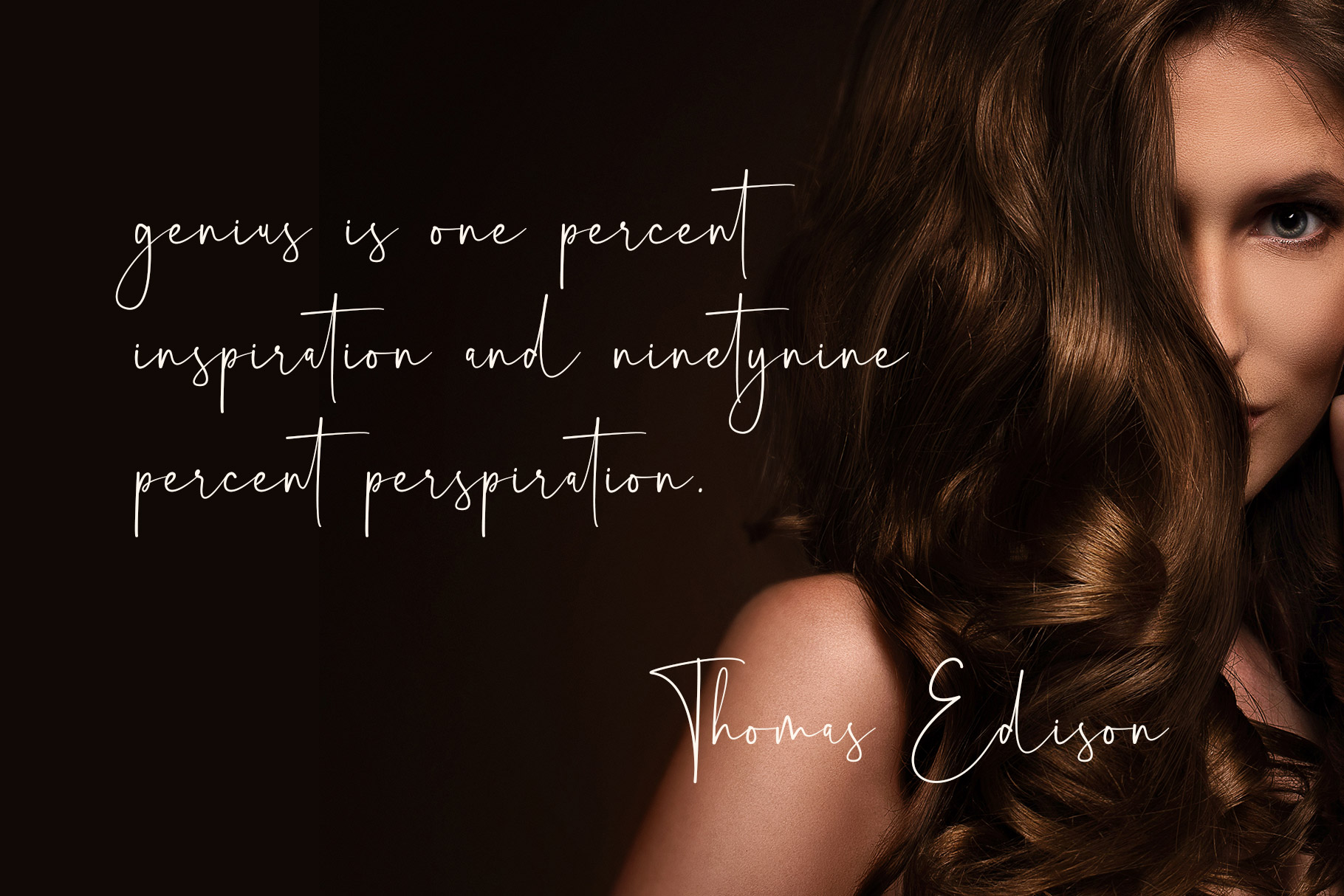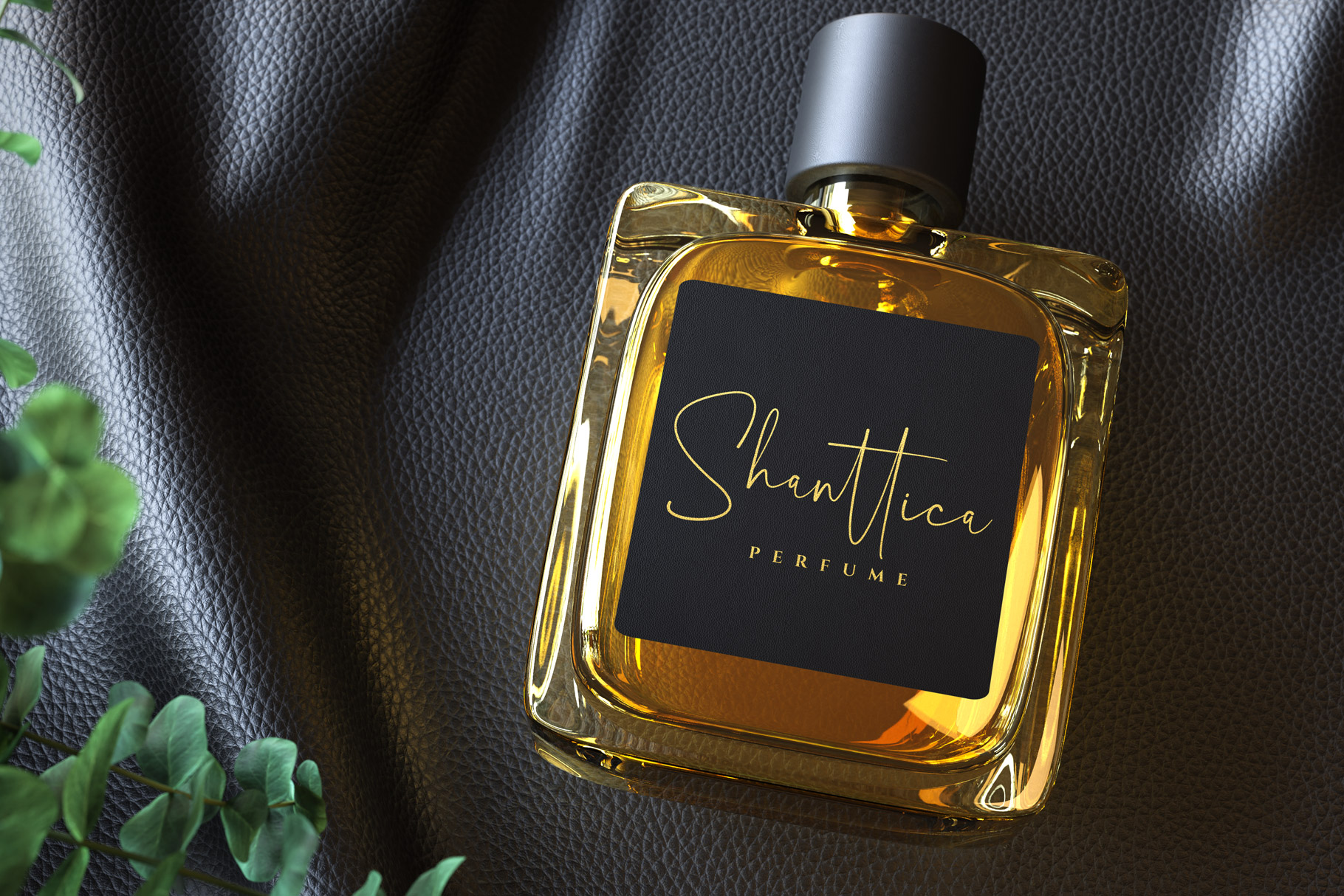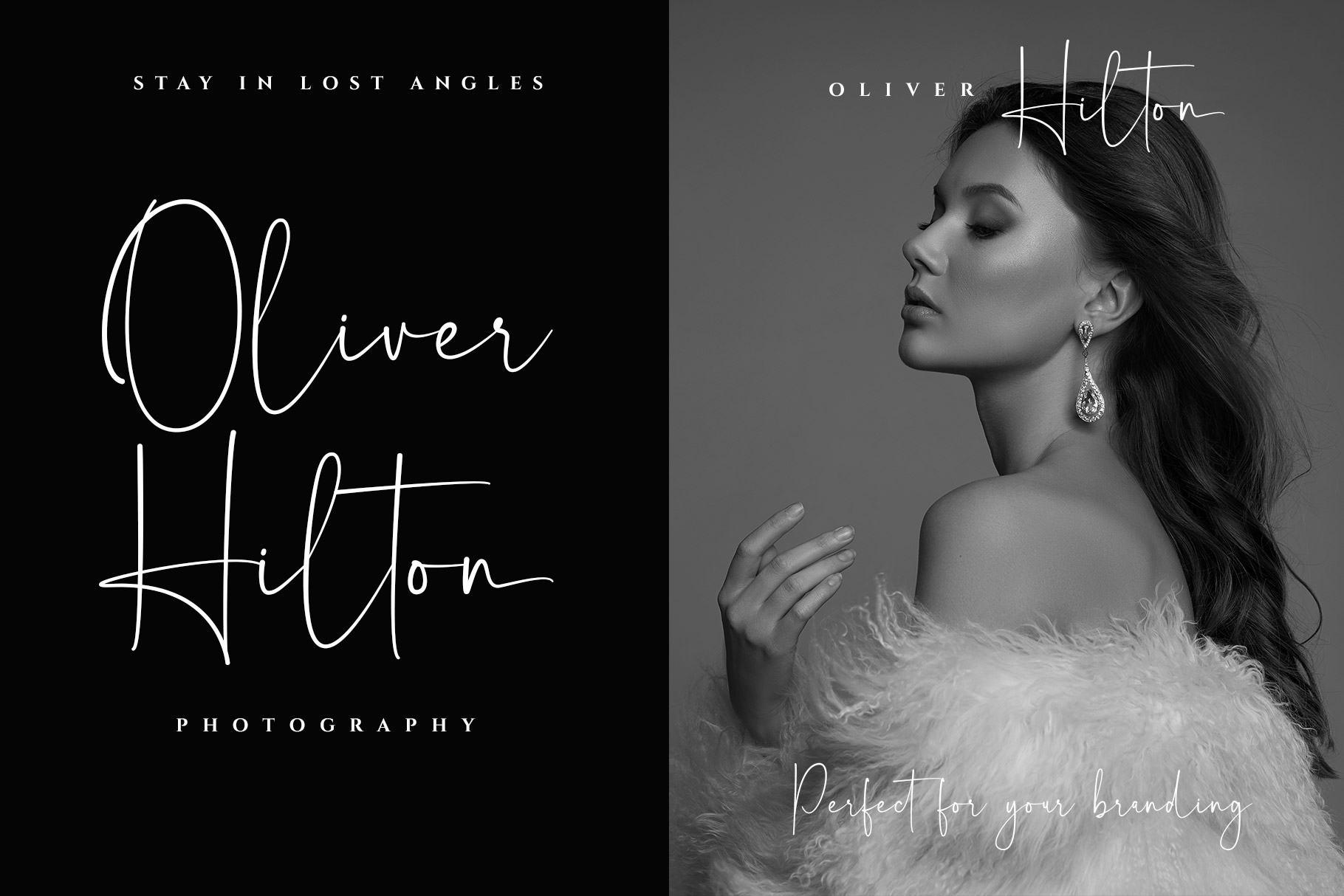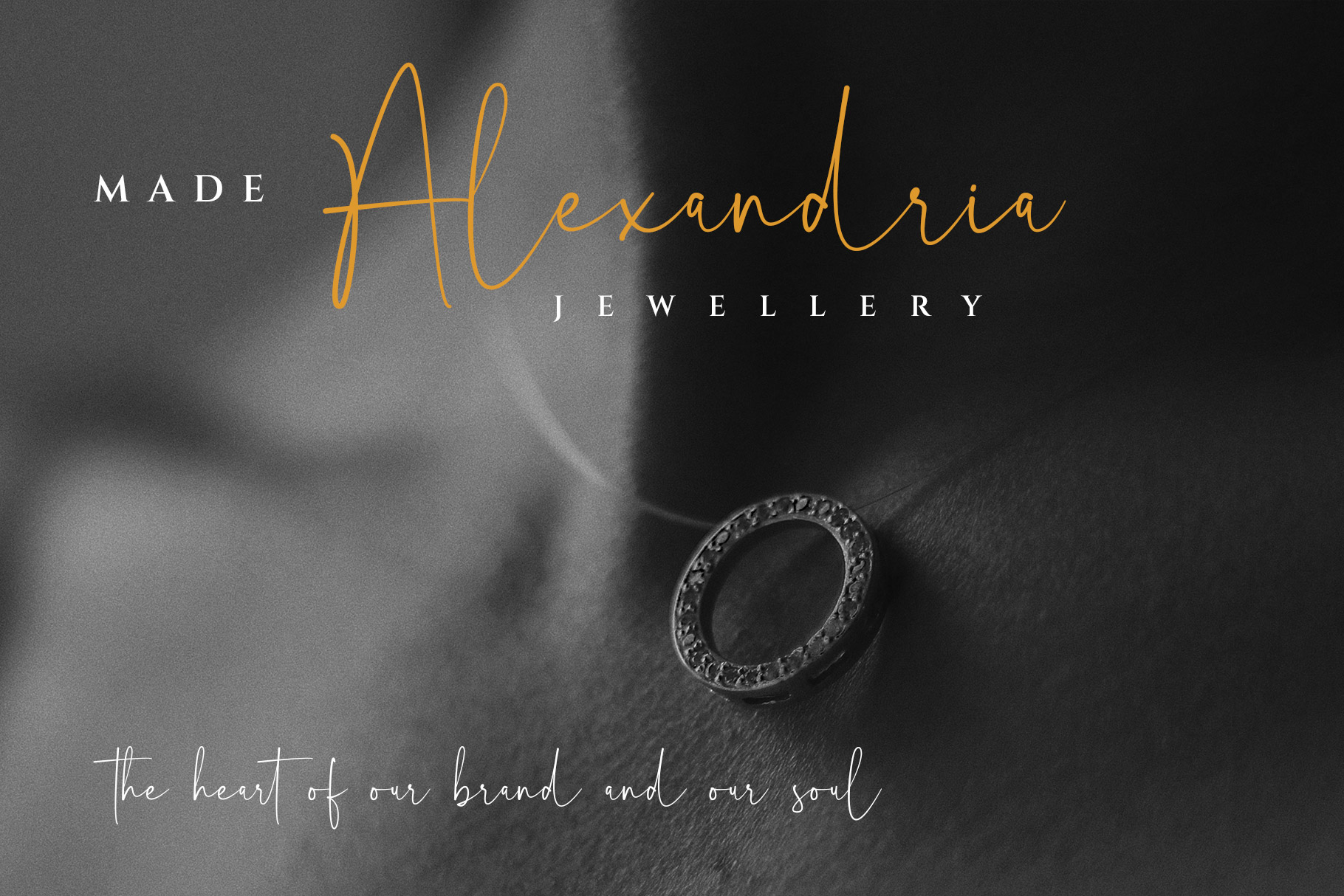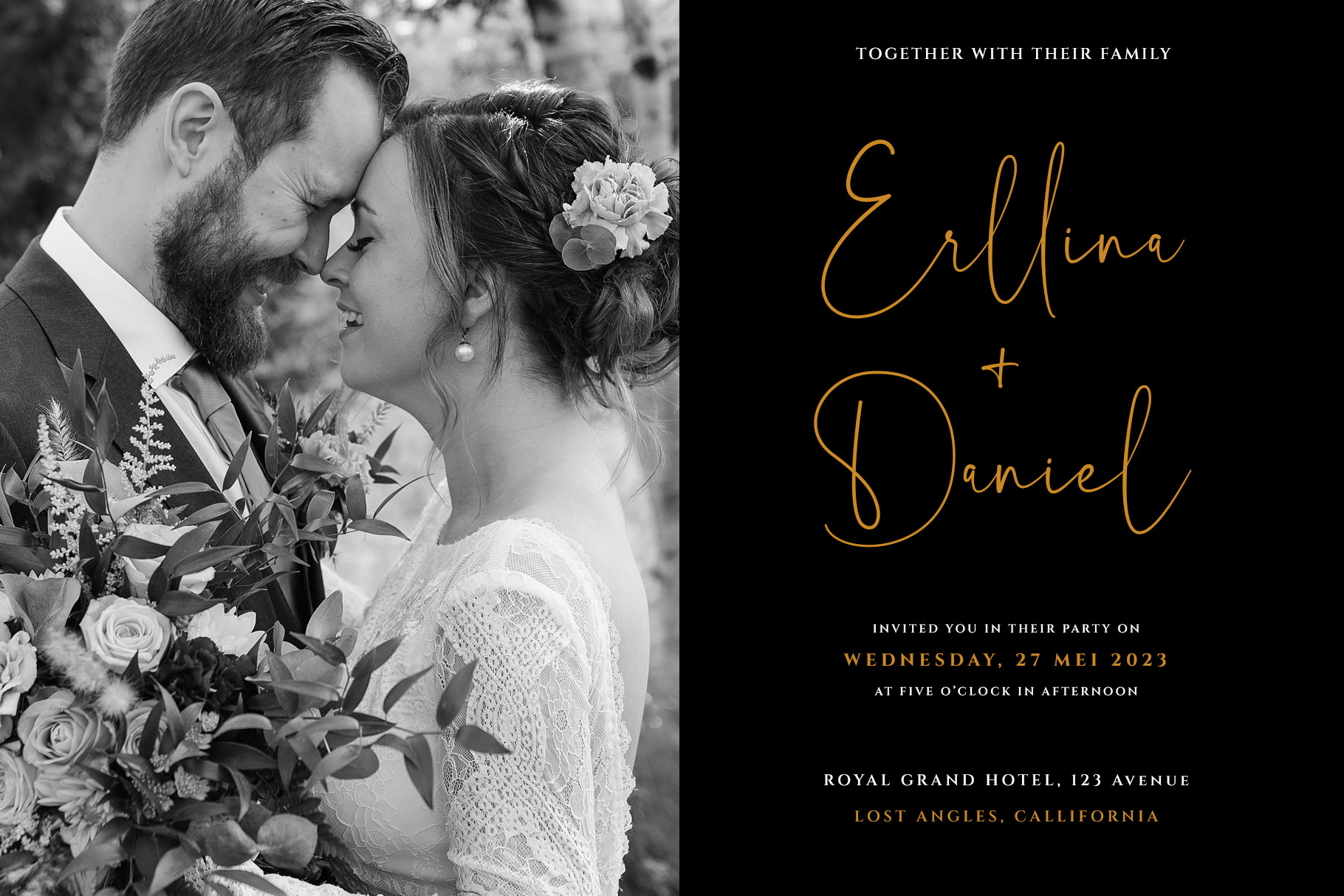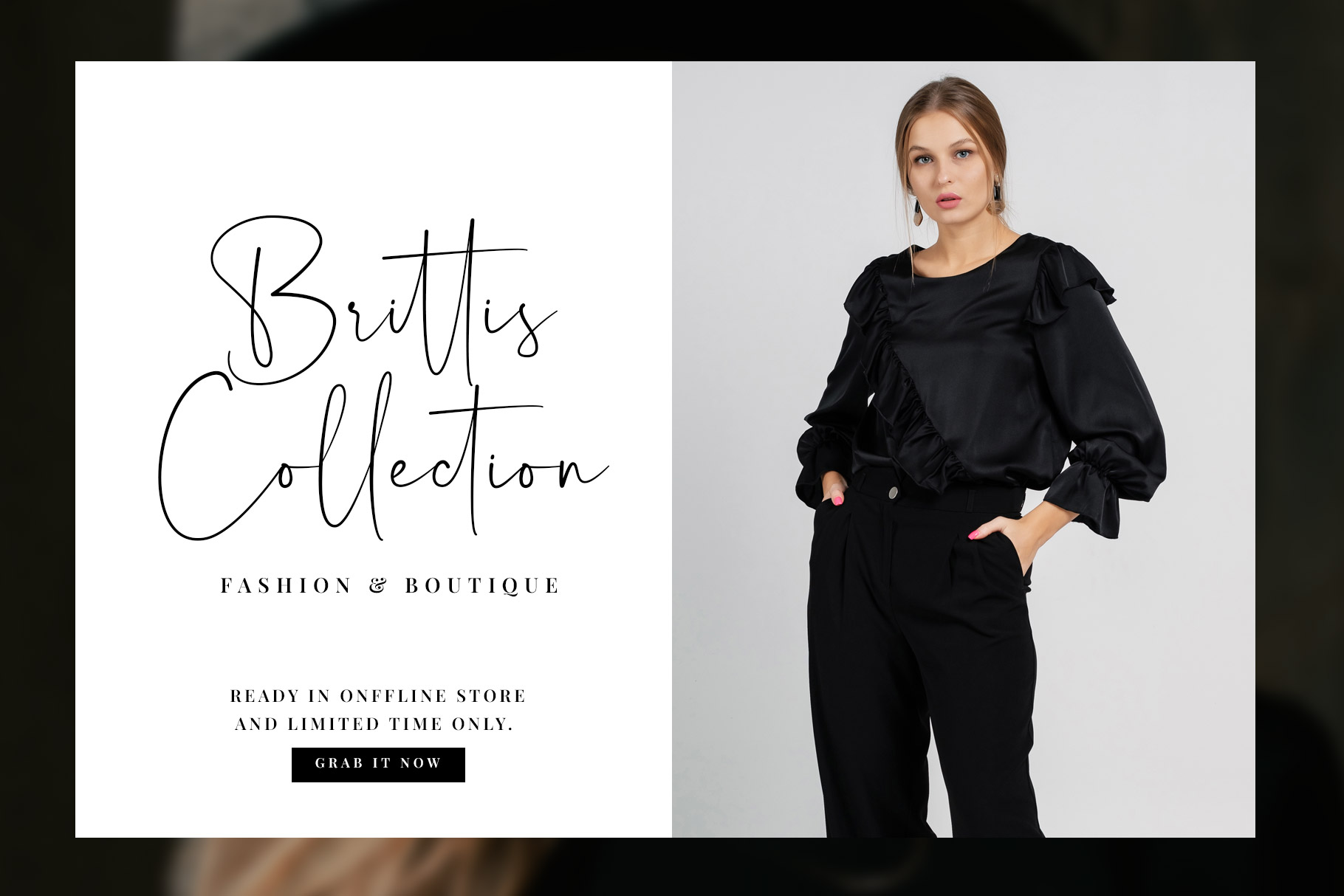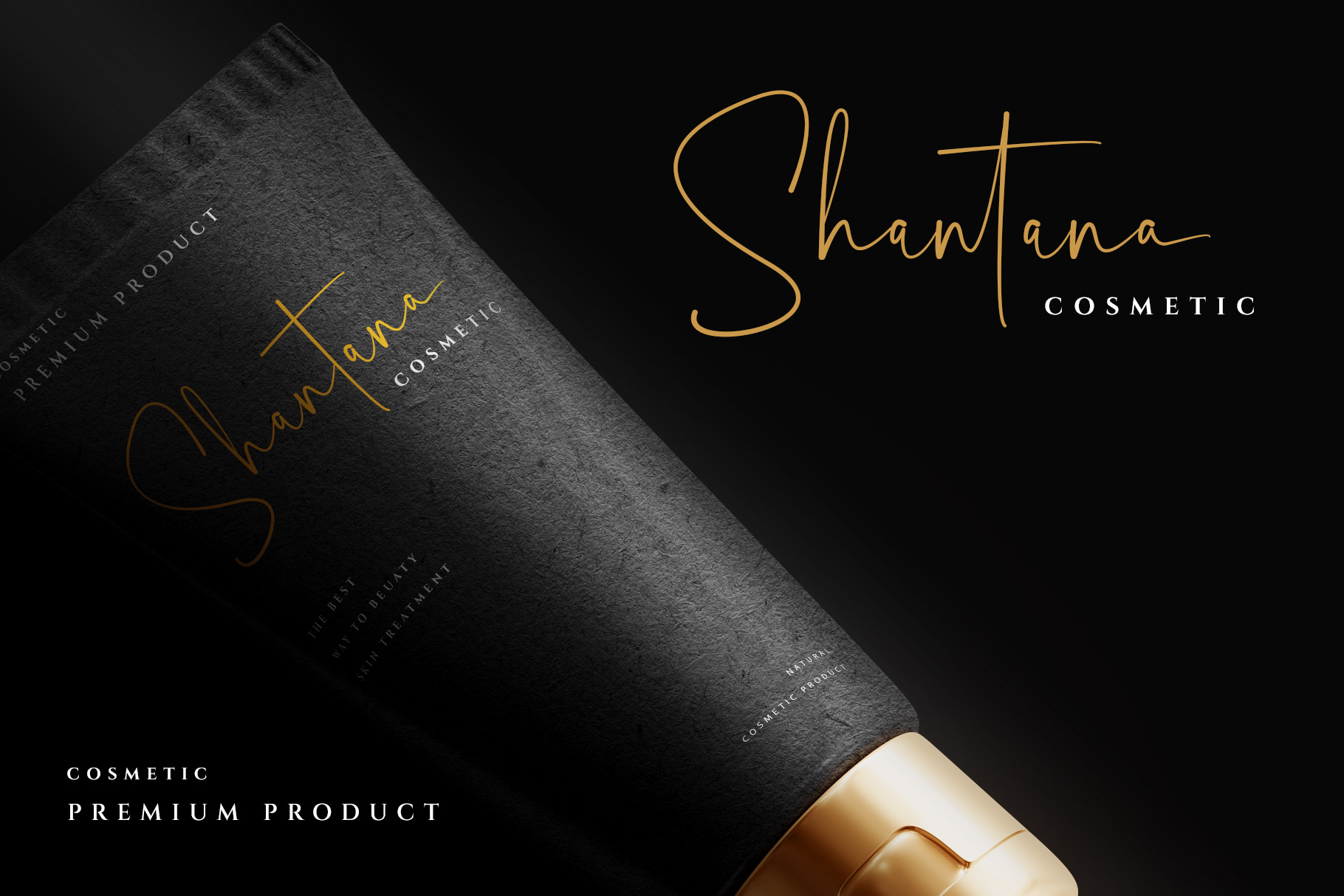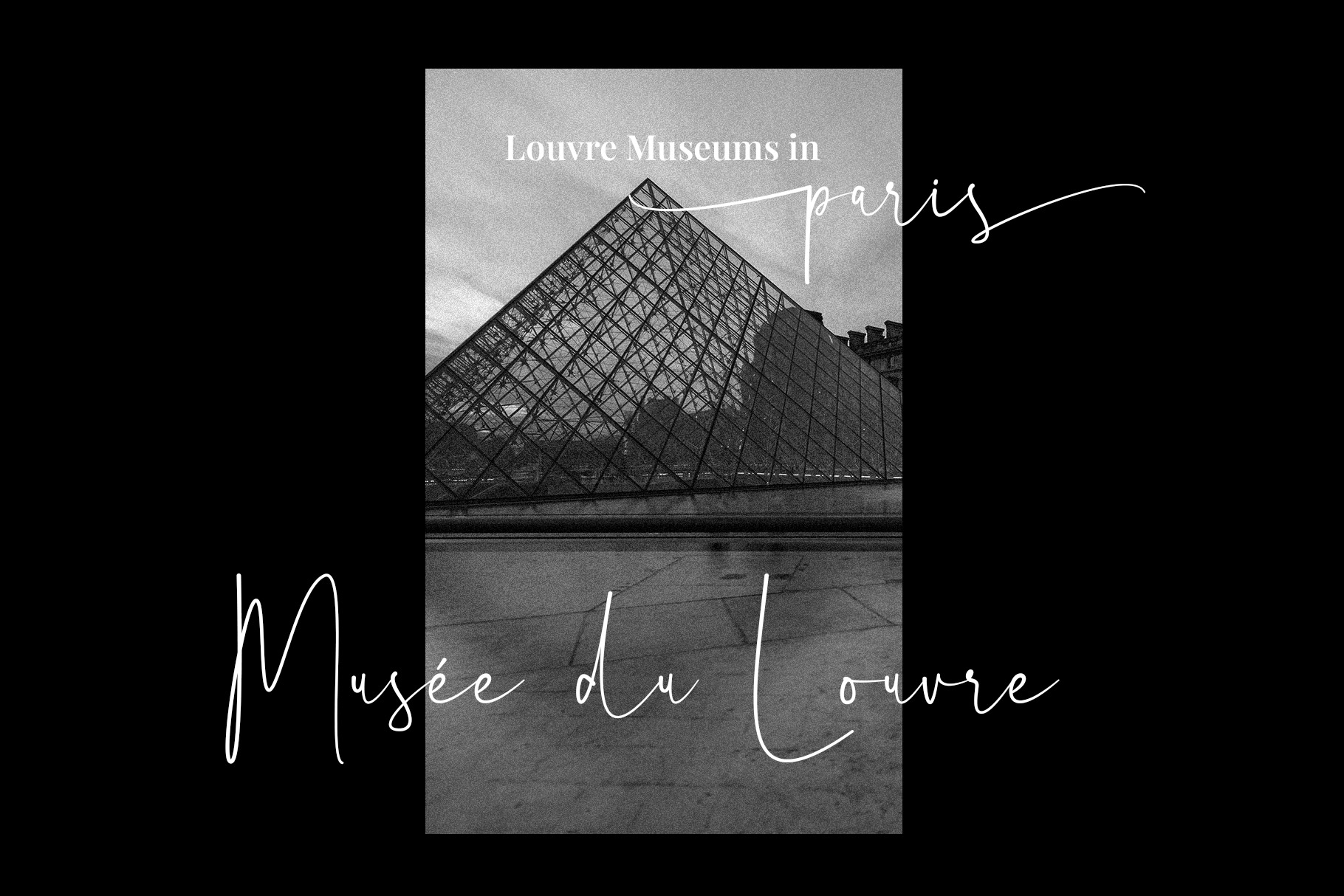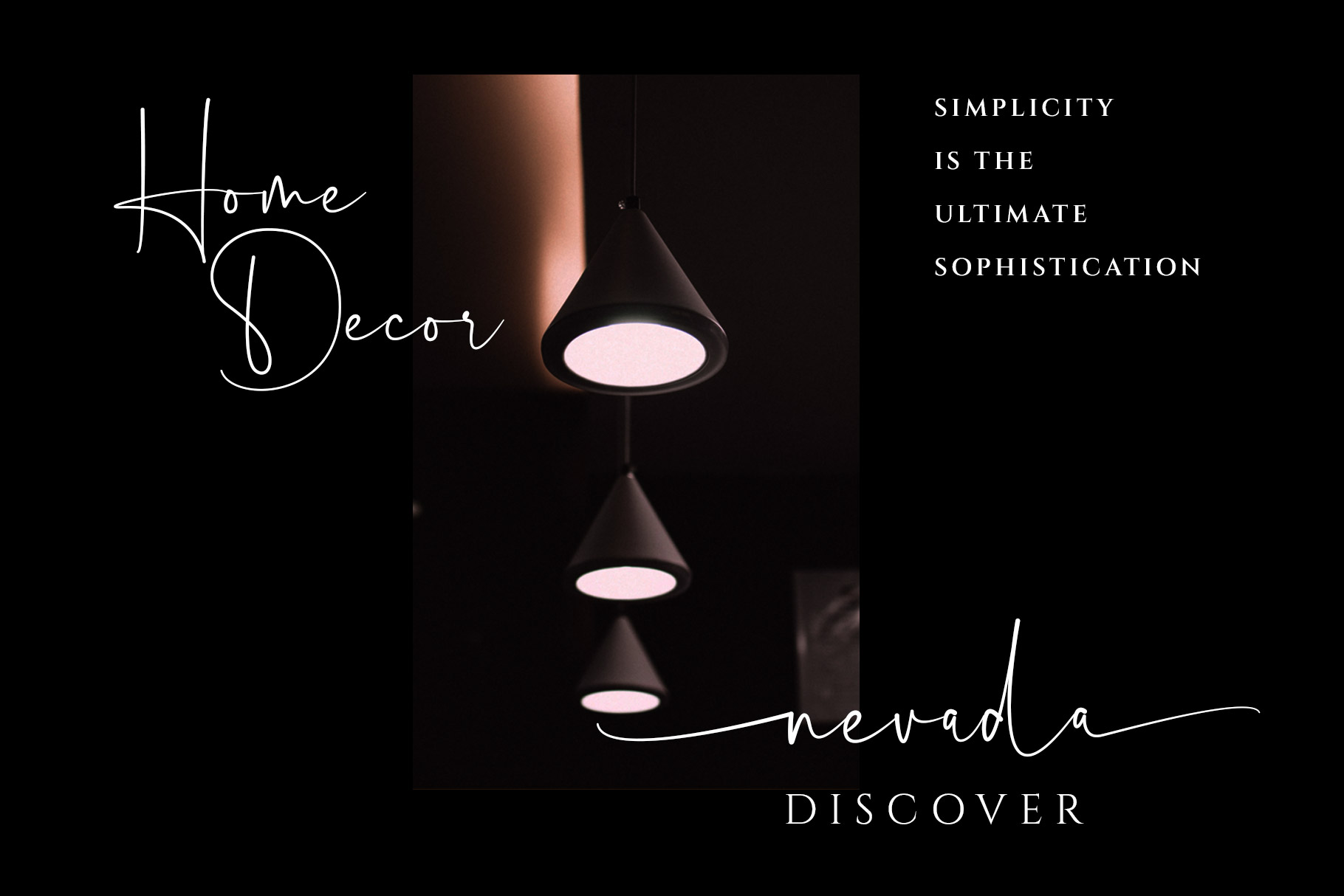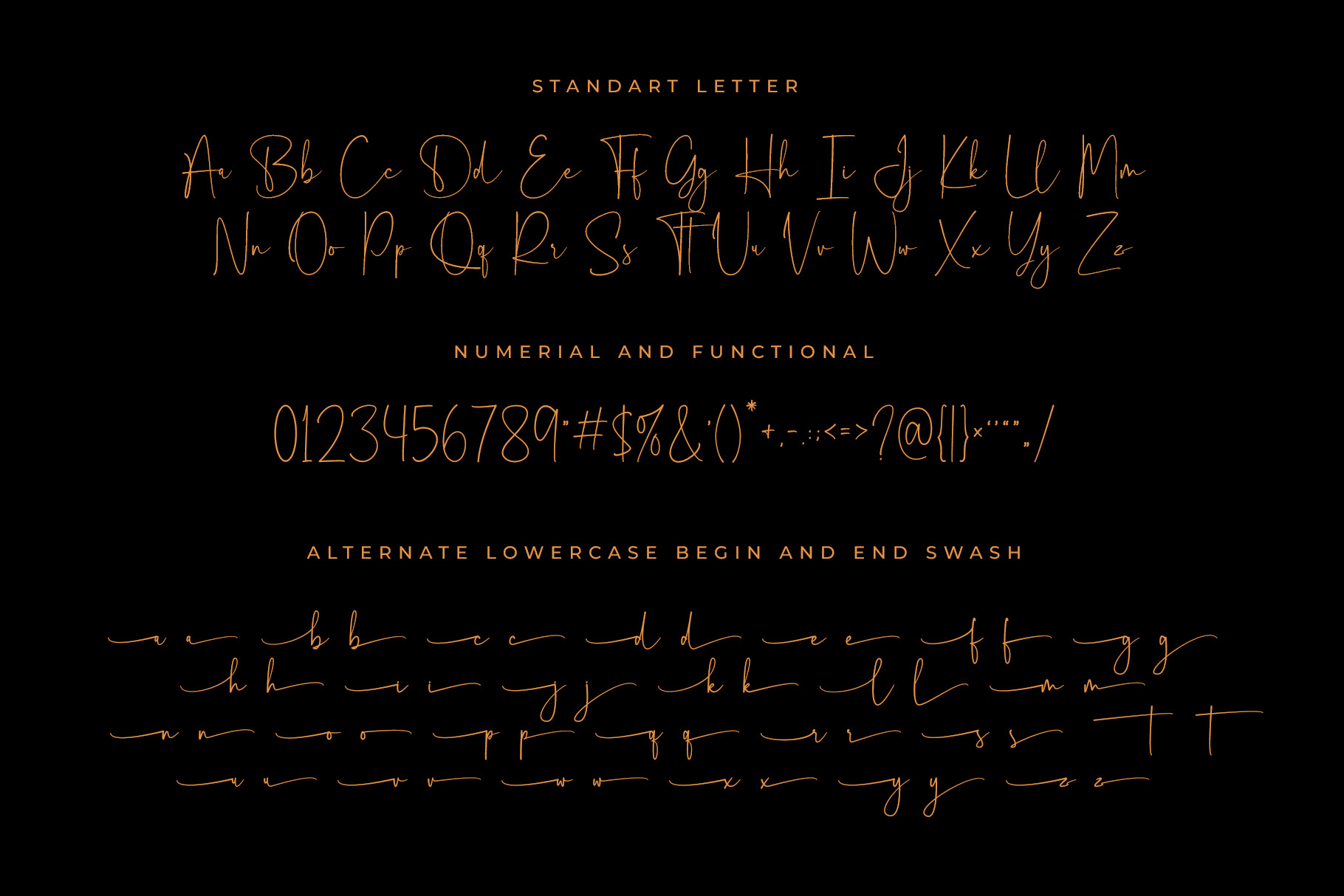
Rihania Smith” for you business.
Rihania Smith - signature pen style which can be interpreted professional. we keep this font looks elegant, luxury, premium, modern, readable, stylish, catchy and easy to use. Consultant have more alternate, ligature and more swashes make your design more option.
Rihania Smith - is the great choice for watermark on photography, branding, wedding event, signature or signature logo design, quotes, album cover, magazine, business card and many other design project.
Features- Standar character A-Z and a-z
- Numberial and Functional
- Ligature
- Alternate
- Lowercase begin and end swash
- Multilinggual support
- Swashes